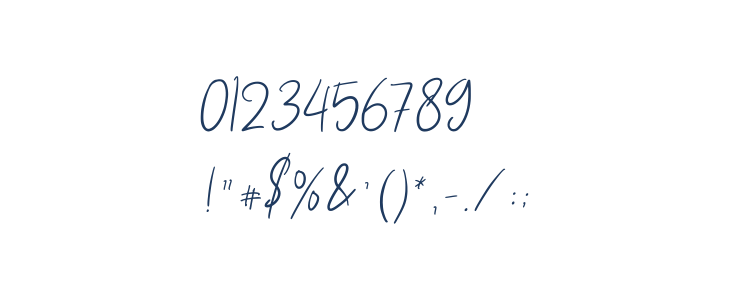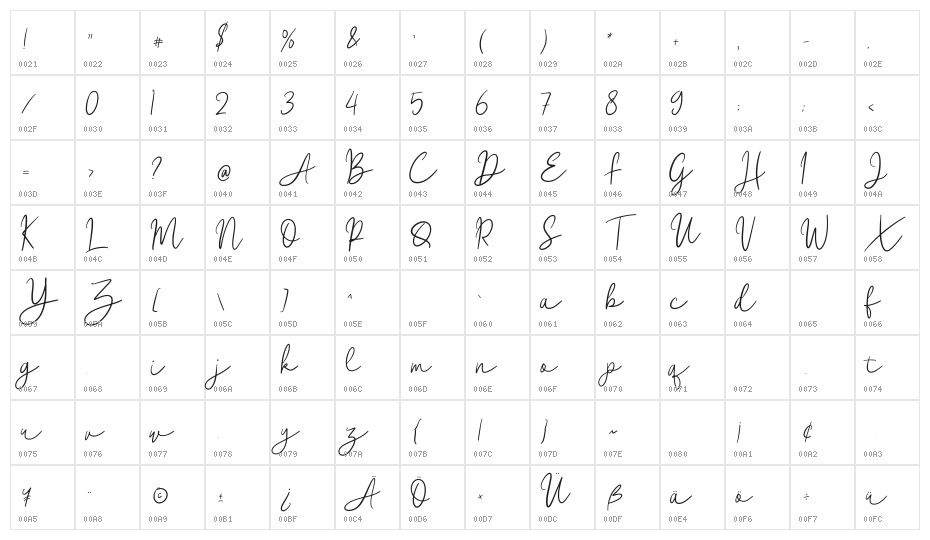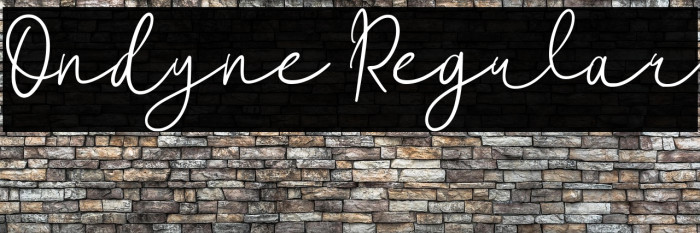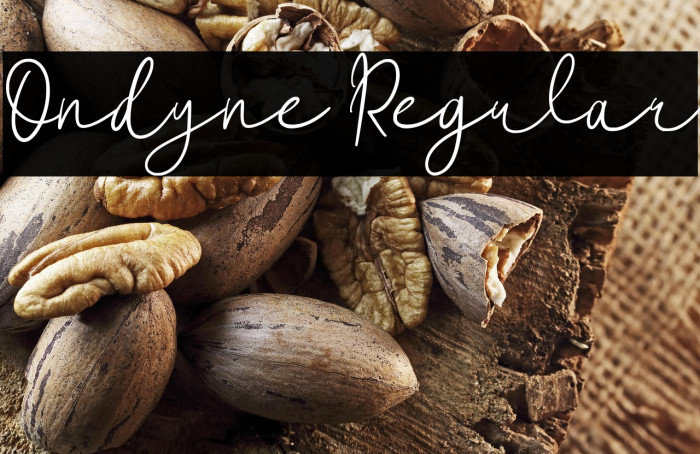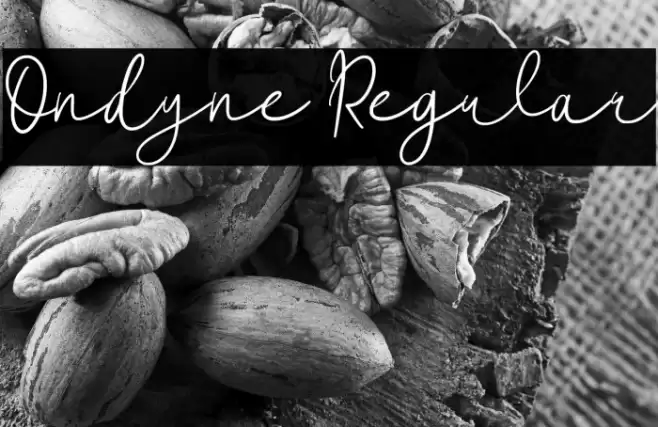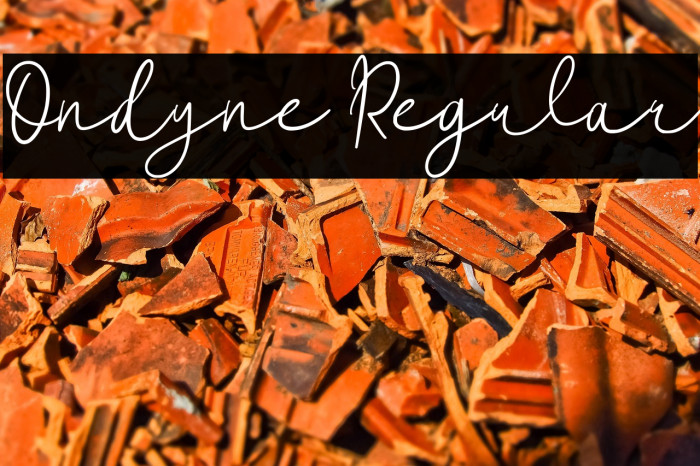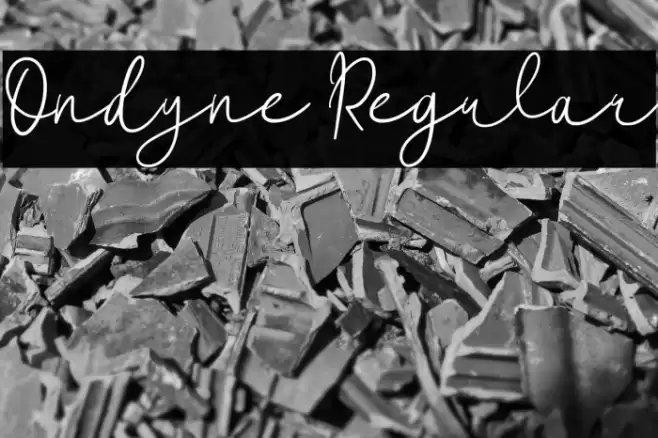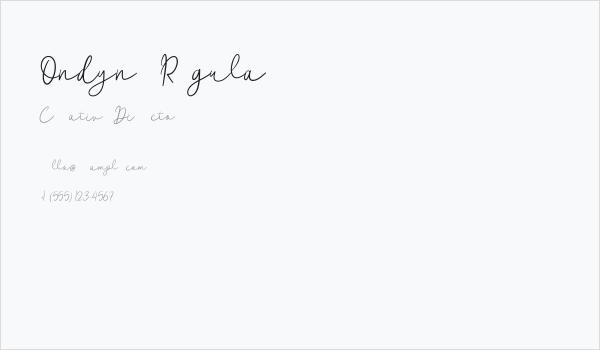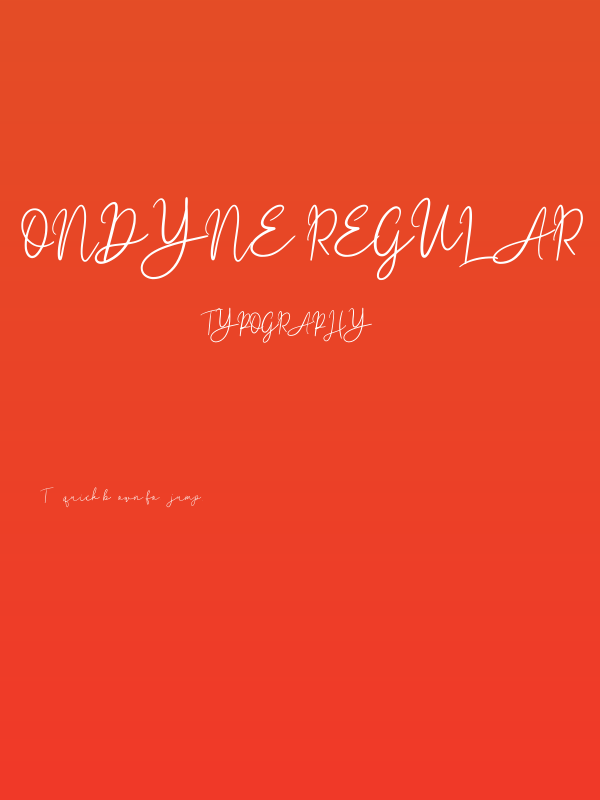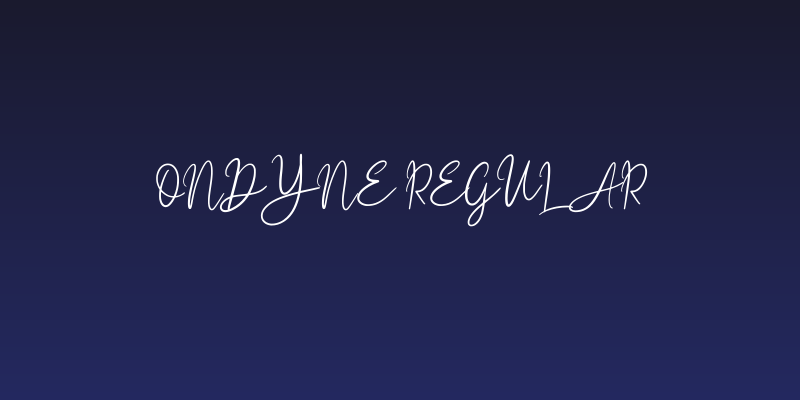
Ondyne Regular Font
Ondyne Regular Description
This font features an elegant and flowing script style, characterized by its smooth, cursive strokes and a handwritten appearance. The uppercase letters are tall and slightly slanted, giving a sense of sophistication and grace. The lowercase letters maintain a consistent flow, with loops and curves that enhance the font's fluidity. Numbers and special characters are designed to complement the overall script style, maintaining the same elegant and cohesive look. This font exudes a sense of personal touch and artistic flair, making it ideal for projects that require a more personal or creative expression.
| Overall Style | Elegant, Artistic |
| Use Case | Headlines, Invitations, Personal Branding |
| Proposed Projects | Ideal for wedding invitations, greeting cards, personal branding, and artistic projects. |